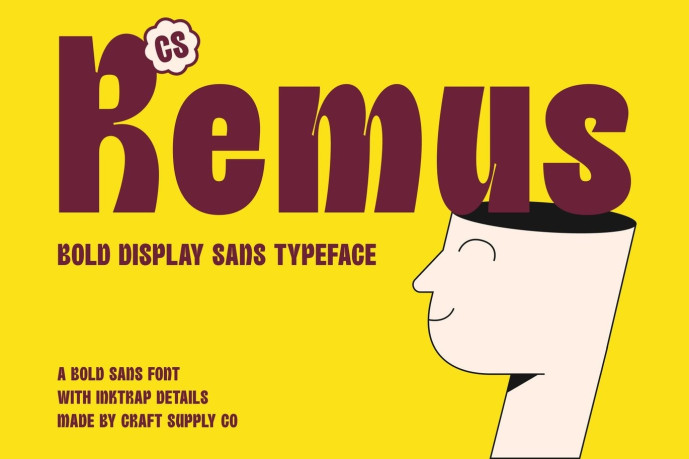
Remus – Inktrap Font
Designer: Craft Supply Co.
CS Remus – Bold Sans Serif Font: Where Playful Inktraps Meet 90s Comic Energy Bold Letterforms with Retro Comic Personality This is a bold sans serif font that combines playful inktrap details with the vibrant energy of 90s cartoon and comic typography. Its thick, expressive letterforms instantly grab attention, creating typography that feels lively, confident, and full of personality. Balancing nostalgic charm with modern refinement, it delivers a distinctive style that is both fun and impactful.
Playful Inktraps with Strong Visual Character This font transforms a functional typographic element into a defining design feature. These expressive cut-ins add depth, uniqueness, and visual rhythm to every letter while maintaining excellent readability. The combination of bold construction and playful inktraps creates typography that feels dynamic, memorable, and unmistakably modern.
Retro Inspiration with Contemporary Appeal Inspired by the bold aesthetics of 90s comics and animated graphics, this font blends retro playfulness with clean contemporary design. Its energetic forms communicate excitement and creativity, while the balanced structure keeps it versatile for a wide variety of modern applications.
Perfect for Displays, Posters, Headlines, and Titles Perfect for display typography, posters, flyers, titles, logos, packaging, merchandise, advertising campaigns, and other creative projects that demand bold, energetic typography. Its playful inktrap details and comic-inspired personality make it ideal for designs that communicate fun, originality, and strong visual impact.
Uppercase and lowercase characters
Numerals and Punctuation (OpenType Standard)
Accents (Supports Multilingual Characters)